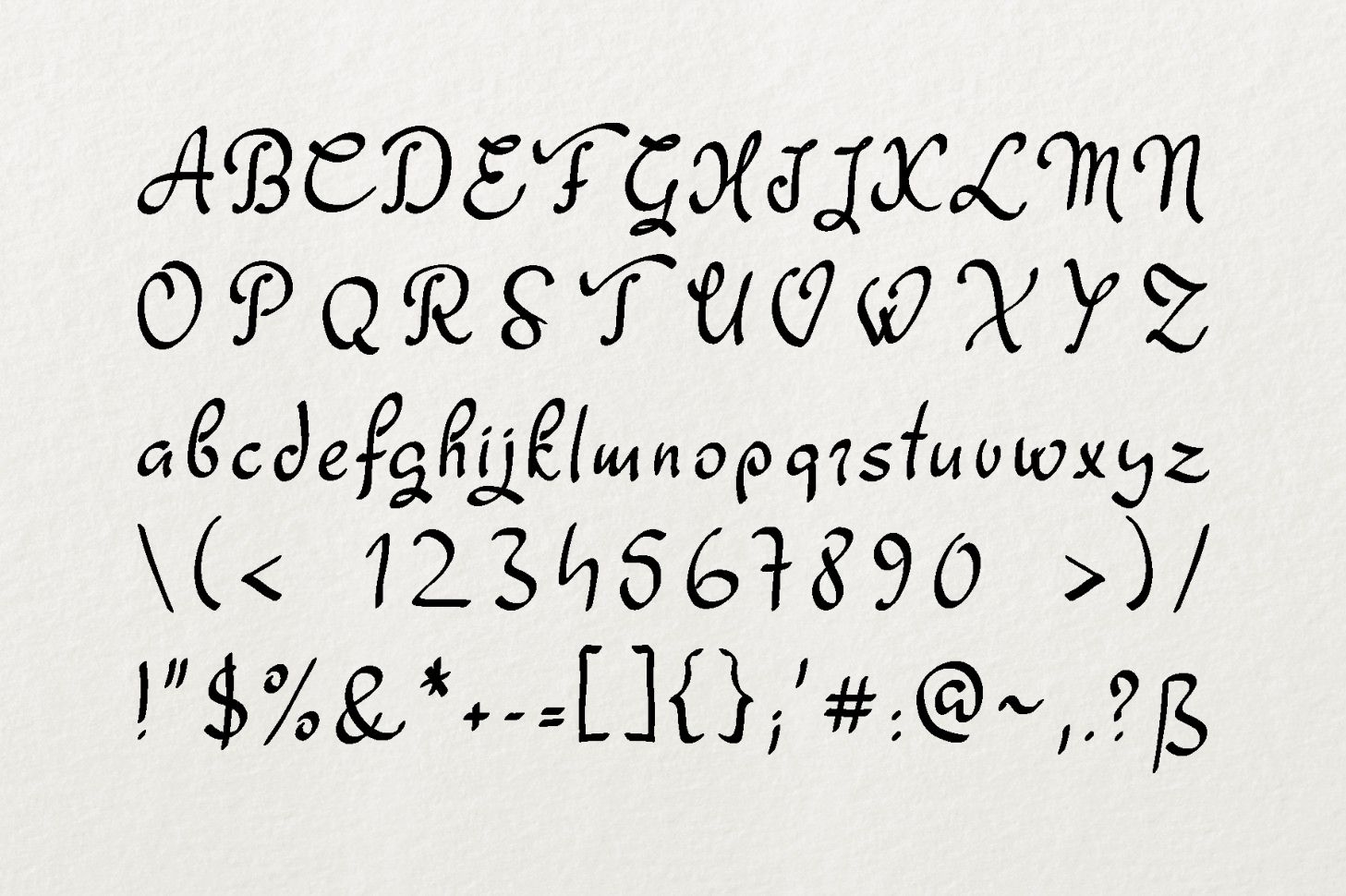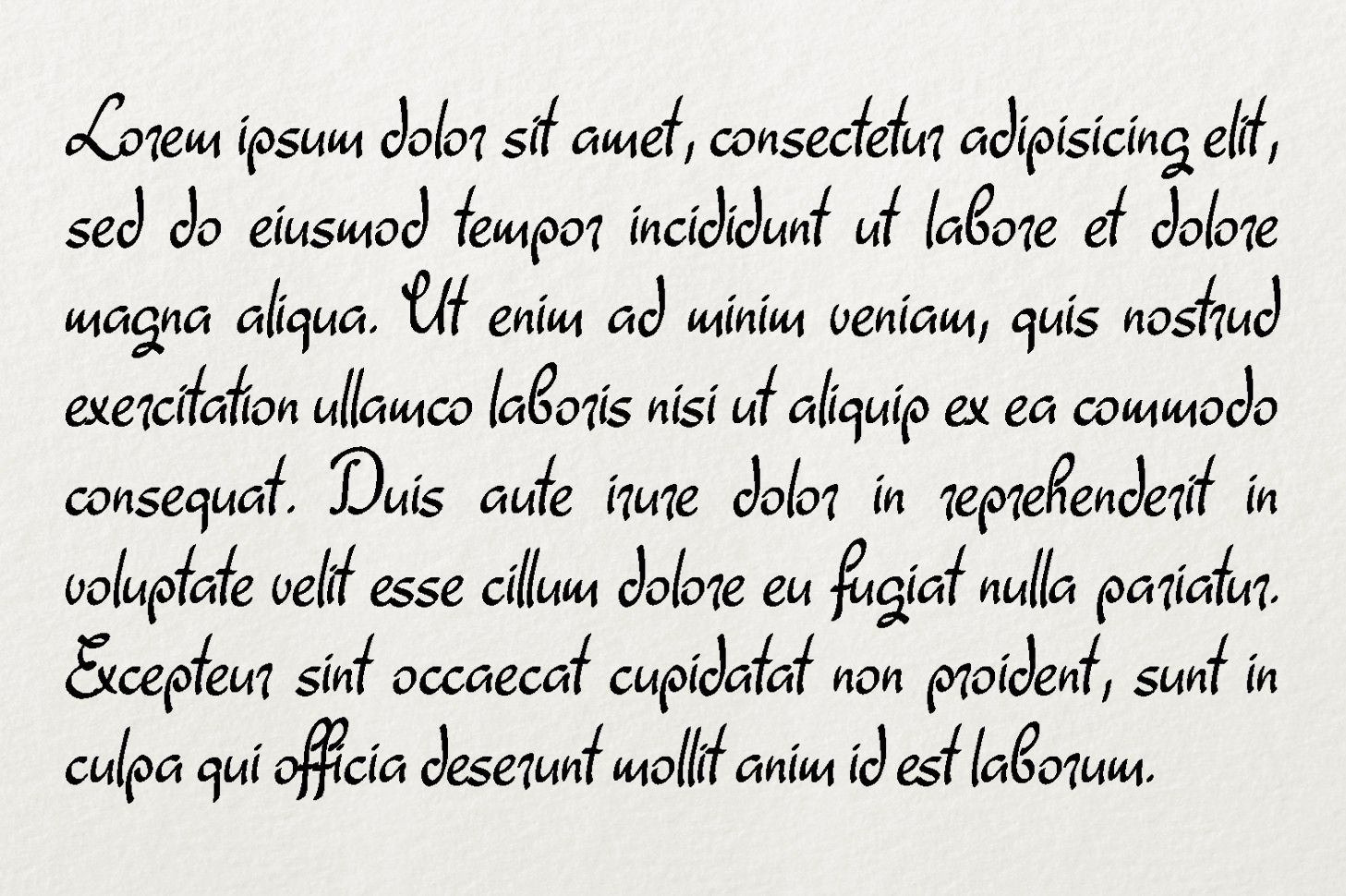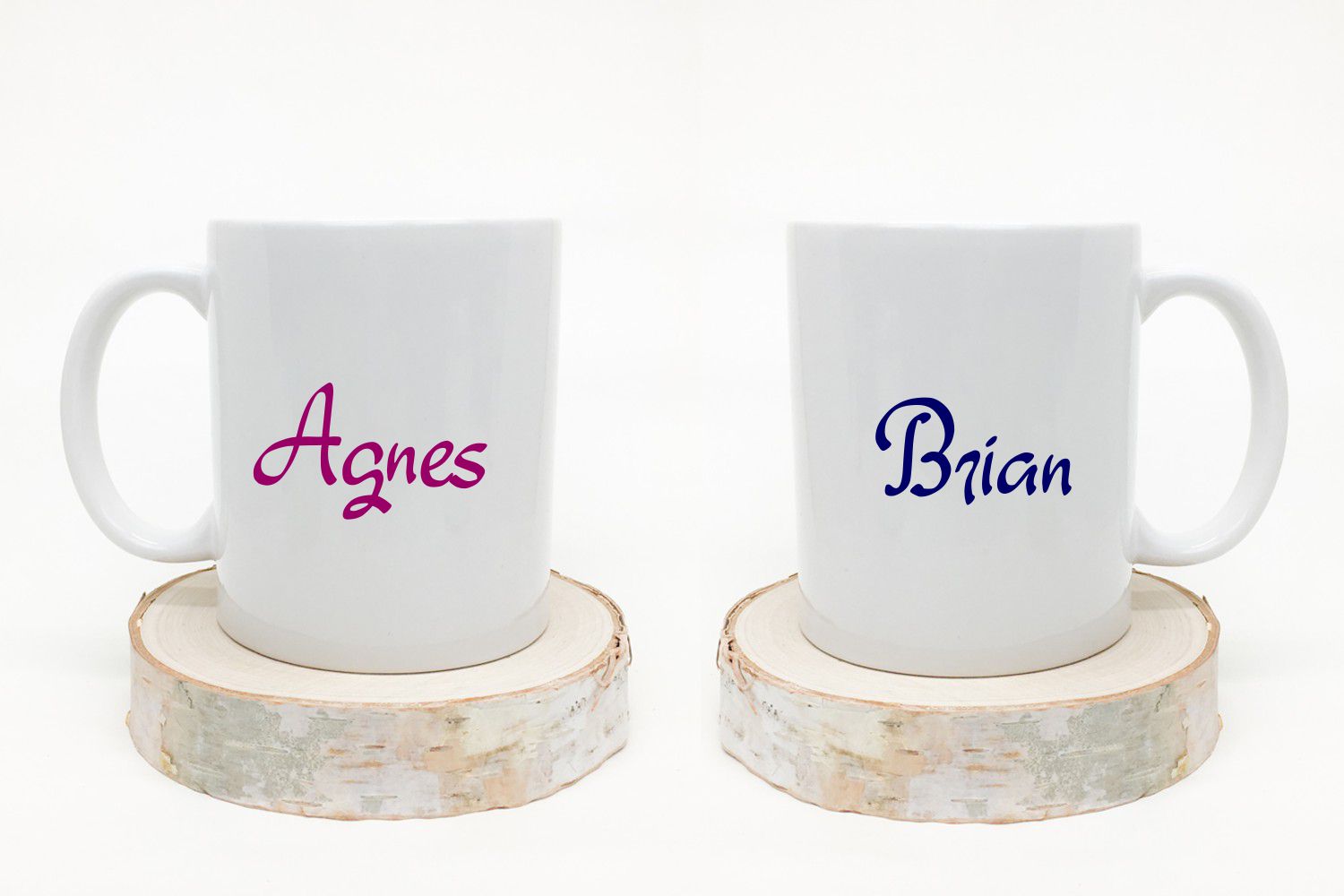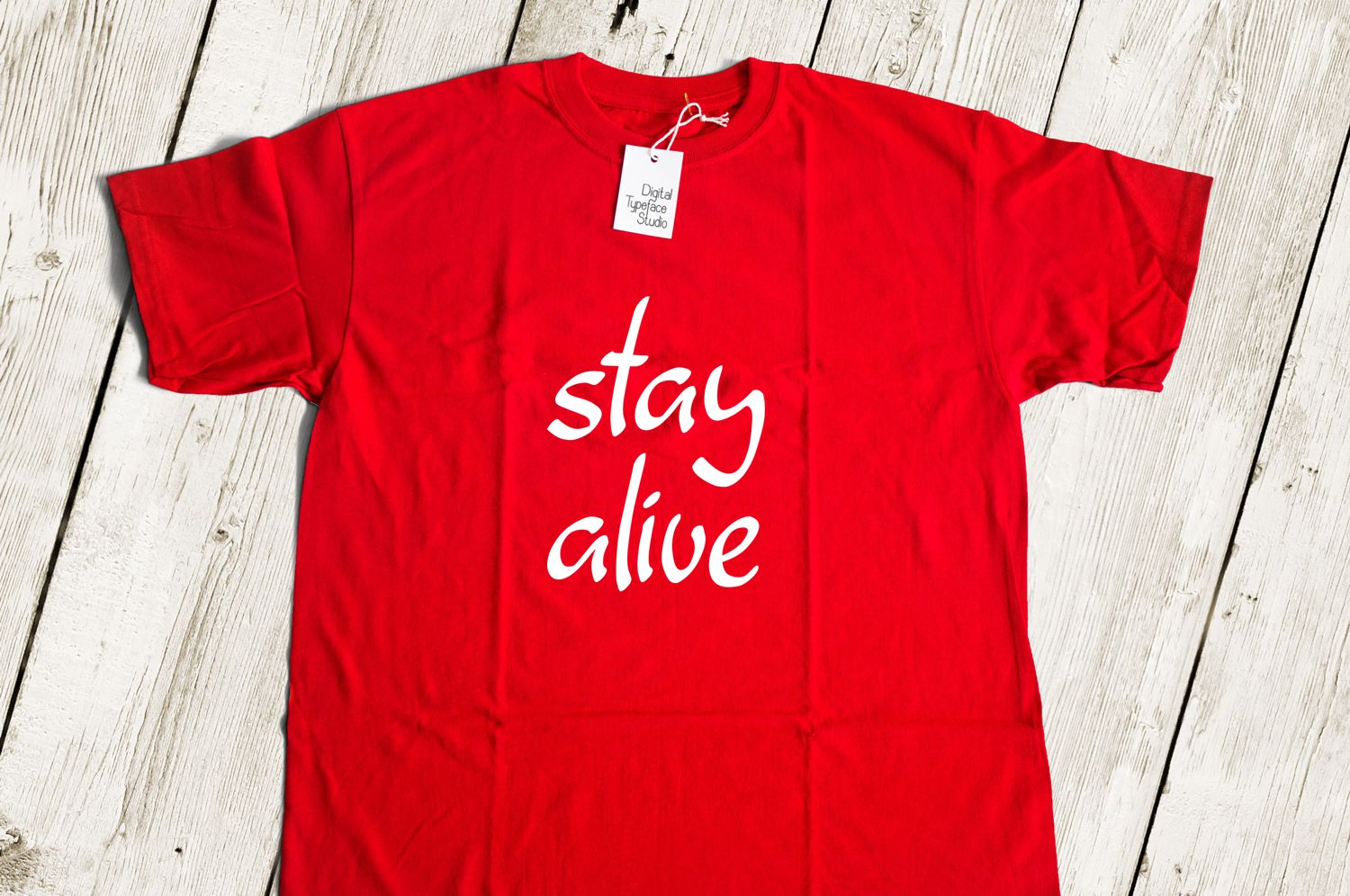
Fagyth Font: Elevate Your Designs with Elegant Handwritten Style
In the world of typography, fonts play a crucial role in conveying the tone and personality of a design. For designers and crafters looking to add a touch of elegance and friendliness to their creative projects, the Fagyth font is an excellent choice. This beautiful handwritten font is ideal for use in a wide range of designs, from casual invitations to sophisticated branding materials.
The Charm of Fagyth Font
Fagyth is a stunning script font that exudes warmth and approachability. Its elegant, cursive strokes and carefully crafted letterforms make it perfect for designs that require a personal touch. The font’s flowing lines and subtle variations in thickness create a sense of movement and fluidity, adding visual interest to any design.
Key Features of Fagyth Font
- Handwritten style: Fagyth’s handwritten style gives it a unique, personal feel that’s perfect for designs that require a touch of warmth and approachability.
- Easy to read: Despite its elegant appearance, Fagyth is surprisingly easy to read, making it suitable for use in a wide range of designs, from headings to body text.
- Versatile: Fagyth is a versatile font that can be used in various design contexts, including invitations, branding, packaging, and more.
- Elegant and refined: Fagyth’s elegant, refined appearance makes it perfect for designs that require a touch of sophistication and luxury.
Use Cases for Fagyth Font
Fagyth’s versatility and elegance make it suitable for a wide range of design applications. Here are some use cases where Fagyth font can shine:
- Wedding invitations and stationery: Fagyth’s elegant, handwritten style makes it perfect for wedding invitations, save-the-date cards, and other wedding-related stationery.
- Branding and packaging: Fagyth can add a touch of sophistication and elegance to branding materials, such as logos, business cards, and product packaging.
- Social media graphics: Fagyth’s friendly, approachable style makes it suitable for social media graphics, such as quote graphics, Instagram posts, and Facebook headers.
- Blog and website headers: Fagyth can add a touch of elegance and refinement to blog and website headers, making them stand out from the crowd.
Tips for Using Fagyth Font
To get the most out of Fagyth font, here are some tips to keep in mind:
- Pair with contrasting fonts: Pair Fagyth with contrasting fonts, such as sans-serif or serif fonts, to create visual interest and hierarchy.
- Experiment with colors: Fagyth looks great in a range of colors, from soft pastels to rich jewel tones. Experiment with different colors to find the perfect match for your design.
- Use for headings and titles: Fagyth’s elegant appearance makes it perfect for use in headings and titles. Use it to add a touch of sophistication and elegance to your designs.
In conclusion, Fagyth font is a beautiful, elegant handwritten font that’s perfect for designers and crafters looking to add a touch of warmth and sophistication to their creative projects. Its versatility, readability, and elegant appearance make it suitable for a wide range of design applications. With Fagyth font, you can elevate your designs and create stunning visual experiences that leave a lasting impression.